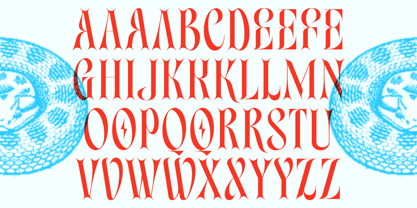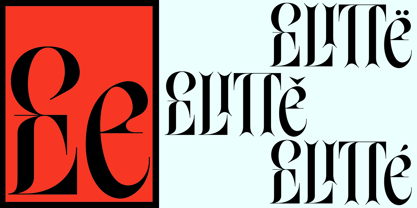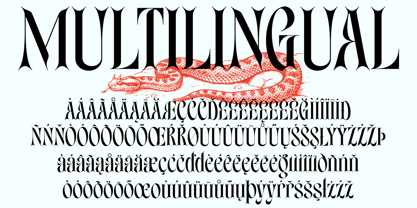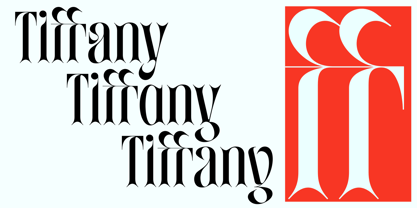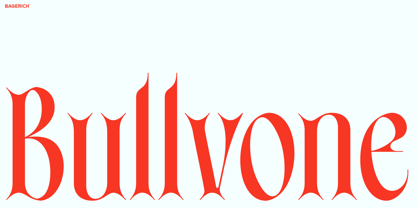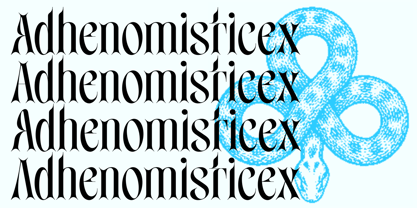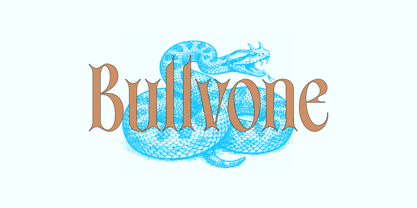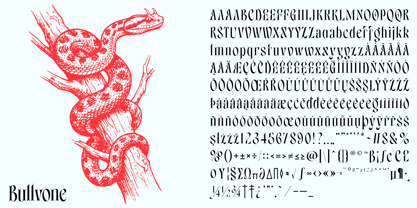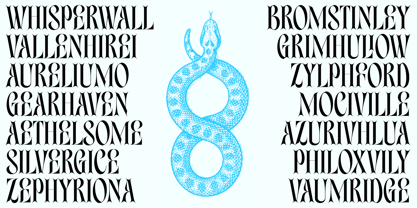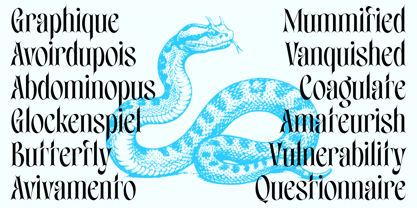
Bullvone
The Bullvone Font Family was designed by Reza Rasenda and published by Zealab Fonts Division. Bullvone contains 1 styles. More about this family
Bullvone is a high-contrast display typeface that masterfully blends the aggressive spirit of classic metal aesthetics with the refined precision of modern high-fashion typography. Each character features razor-sharp, thorn-like serifs and dramatic verticality, creating a visual rhythm that is both intimidating and sophisticated. The typeface’s unique "stinging" terminals and flared strokes give it a predatory grace, making it an ideal choice for brands that want to communicate power, edge, and an uncompromising sense of luxury. Designed for maximum impact, Bullvone excels in large-scale applications such as editorial headlines, streetwear branding, and provocative poster art. Its distinct silhouette pairs beautifully with gritty, stippled illustrations—much like the horned serpent in its showcase—bringing a dark, avant-garde energy to any project. Whether you are looking to define a bold new identity or add a touch of dangerous elegance to your layout, Bullvone provides the sharp architectural foundation needed to stand out in a crowded visual landscape.
Zealab Fonts Division is an independent digital type foundry with a focus on display typefaces. Founded in Bandung, Indonesia in the middle of 2019 by graphic designer Reza Rasenda and Riska Chandra Dewi, Zealab Fonts Division was inspired by urban culture, luxurious brands and street posters. Our crafted, quality typefaces offers access to a unique font collection to serve all your needs.